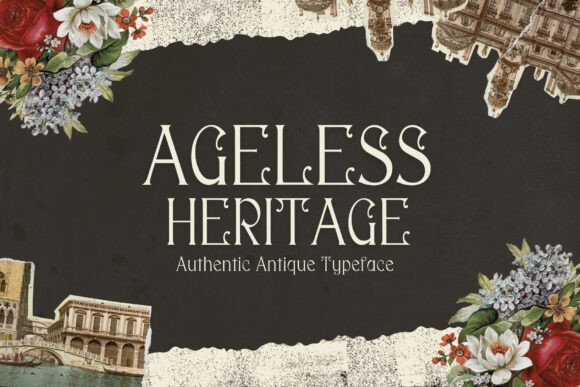
The Timeless Charm of Classic Typography
As you pour over vintage photographs and antique books, have you ever stopped to admire the beautiful typography that transports you to another era? Perhaps it’s the elegant curves, the refined proportions, or the subtle imperfections that evoke a sense of nostalgia and sophistication. For designers, capturing this essence is a challenge that requires both skill and creativity.
Enter the Ageless Heritage Font, a masterful revival of early 20th-century typography that seamlessly blends elegance with professionalism. Designed for those who appreciate the artistry of classic lettering, this typeface is a valuable addition to any designer’s toolkit, offering a unique blend of historical authenticity and modern functionality.
Ageless Heritage Font Key Features
- Font Family: Ageless Heritage Font is a classic serif font designed to evoke a sense of elegance and sophistication.
- Character Set: Ageless Heritage Font includes a comprehensive character set, including uppercase and lowercase letters, numbers, punctuation marks, and special characters.
- Unique Characteristics: Ageless Heritage Font features a unique blend of traditional and modern design elements, with subtle flair and elegance that sets it apart from other serif fonts.
Designer Review: Ageless Heritage Font
Overall, I was quite impressed with the Ageless Heritage Font. It has a unique, elegant touch that’s perfect for creating a sophisticated and timeless look for your designs. ✨ The font’s classic feel makes it ideal for use in high-end branding, luxury packaging, and even historical projects.
- The font’s intricate details and flourishes add a level of sophistication and depth to any design.
- The font is highly legible, even at smaller font sizes, making it perfect for use in a variety of contexts.
- The font’s classic feel is timeless, and it’s unlikely to go out of style anytime soon.
However, there are a few limitations to consider. ⚠️ The font is quite ornate, which can make it difficult to read in certain contexts. Additionally, the font’s complexity can make it challenging to customize and manipulate in design software.
Overall, I would highly recommend the Ageless Heritage Font for designers looking to add a touch of elegance and sophistication to their projects. With a little care and attention, this font can elevate your designs to new heights.
Use the Ageless Heritage Font in combination with other vintage or distressed elements to create a unique and eye-catching design.
Experiment with different font sizes and colors to add depth and visual interest to your design.
The Ageless Heritage Font is ideal for:
Creating vintage-inspired posters and advertisements.
Designing book covers and author websites.
Adding a touch of elegance to wedding invitations and stationery.
Alternatives to Ageless Heritage Font
Playfair Display is a luxurious and elegant serif font, ideal for use in high-end branding, advertising, and editorial content. It features intricate details and a classic feel that is reminiscent of traditional printing.
Comparison to Ageless Heritage Font: While both fonts share a similar classic and elegant feel, Playfair Display is more ornate and luxurious, making it suitable for high-end branding and advertising. Ageless Heritage Font, on the other hand, has a more subtle and understated feel, making it suitable for everyday use.
Didot is a classic serif font with a sophisticated and elegant feel, making it ideal for use in high-end branding, advertising, and editorial content. It features a clean and refined design that is perfect for conveying a sense of luxury and sophistication.